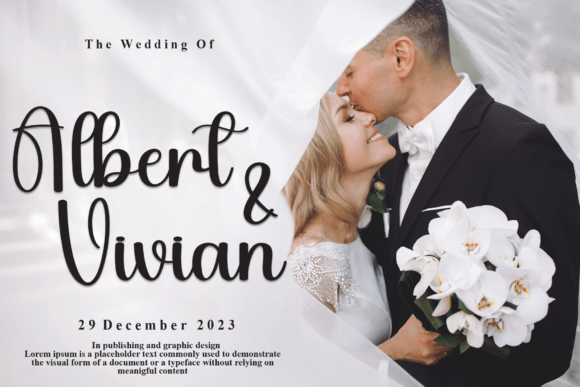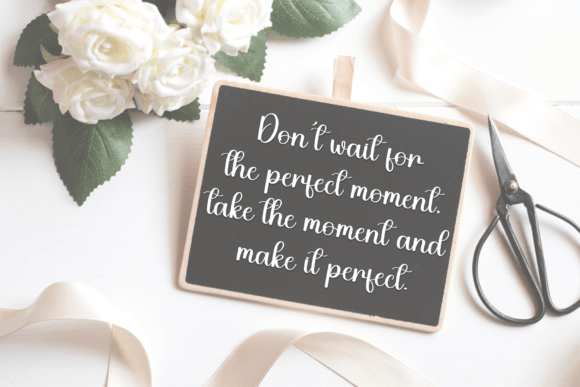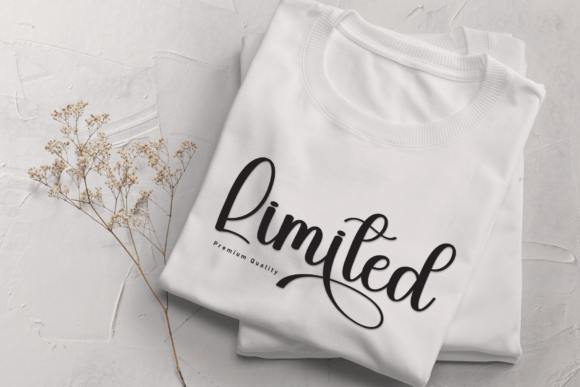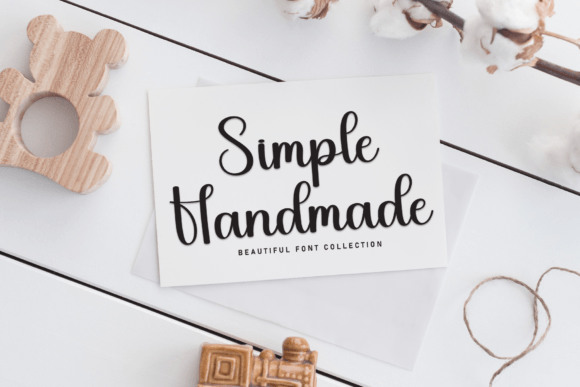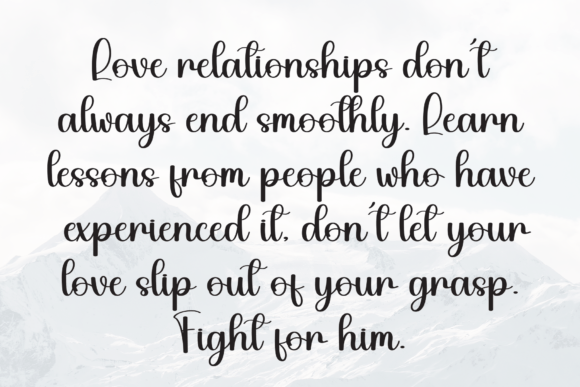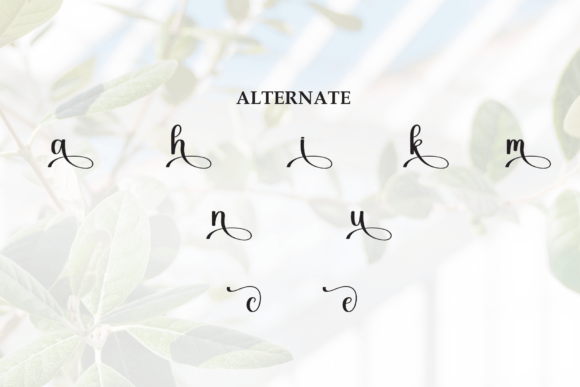
The Sweet Spot: Discovering the Alive Font
I still remember the design project that led me to the Alive font. I was working on a wedding invitation suite, and I just couldn’t find the right font to capture the playful, yet elegant vibe my client was looking for. I scoured font websites, scrolled through design blogs, and even asked fellow designers for recommendations. And then, I stumbled upon Alive – a sweet and friendly handwritten display font that instantly won me over.
First Impressions: A Review of Alive Font
So, what makes Alive so special? Let’s dive into the good stuff! 😊
- ✨ Cute and Fun: Alive is perfect for adding a playful touch to any design project, from wedding invitations to social media graphics.
- ✅ Elegant yet Approachable: This font strikes the perfect balance between sophistication and friendliness, making it ideal for a wide range of design applications.
- 💕 Handwritten Charm: Alive’s handwritten style gives it a personal, human touch that’s hard to find in digital fonts.
While Alive is an amazing font, it’s not without its quirks. Here are a few things to keep in mind:
- 🤔 Legibility at Small Sizes: Like many handwritten fonts, Alive can be a bit tricky to read at very small sizes. It’s best used at larger sizes, such as headings or titles.
- ⚠️ Limited Formality: Due to its playful nature, Alive may not be the best choice for very formal or professional designs.
The Story Behind Alive Font
While I couldn’t find any information on the designer’s inspiration for Alive, I like to imagine that it was created with love and care, just like a handmade gift. Perhaps the designer was inspired by the beauty of handwritten letters, the elegance of calligraphy, or the playfulness of children’s drawings.
Q: What is the Alive font best used for?
A: Alive is ideal for designs that require a playful, yet elegant touch, such as wedding invitations, cards, and social media graphics.
Q: Is Alive a difficult font to read?
A: Like many handwritten fonts, Alive can be a bit tricky to read at very small sizes. It’s best used at larger sizes, such as headings or titles.